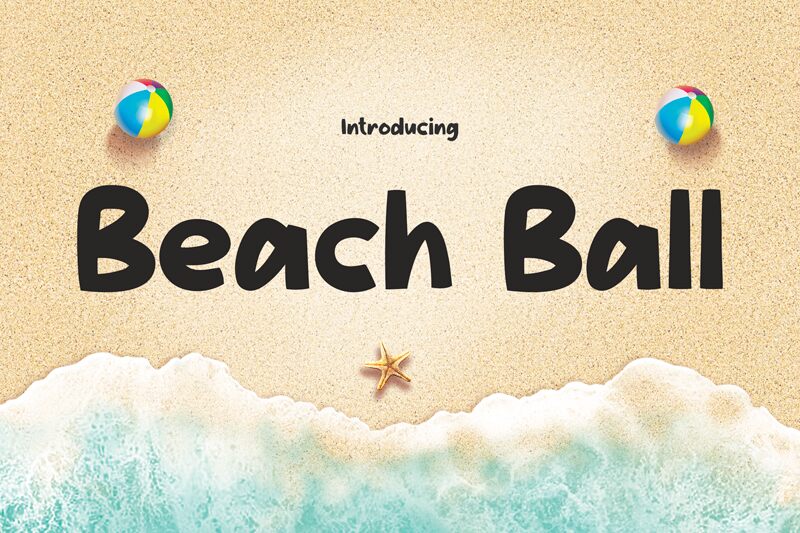
Beach Ball font by Pinisiart is a free cartoon font with a light-hearted mood and whimsical style. The overall feel is friendly and approachable, presenting a casual aesthetic with informal and rounded forms. Contemporary applications of this font focus on its relaxed nature with zero historical references. Let this font do its playful job in branding, packaging, and similar projects.
As an example, Beach Ball works in children’s book covers, storybooks, birthday cards, posters, branding USPs, bakery logos, toy packaging, kids’ clothing tags, stickers, or store displays. Extend its uses by pairing it with other suitable free fonts.